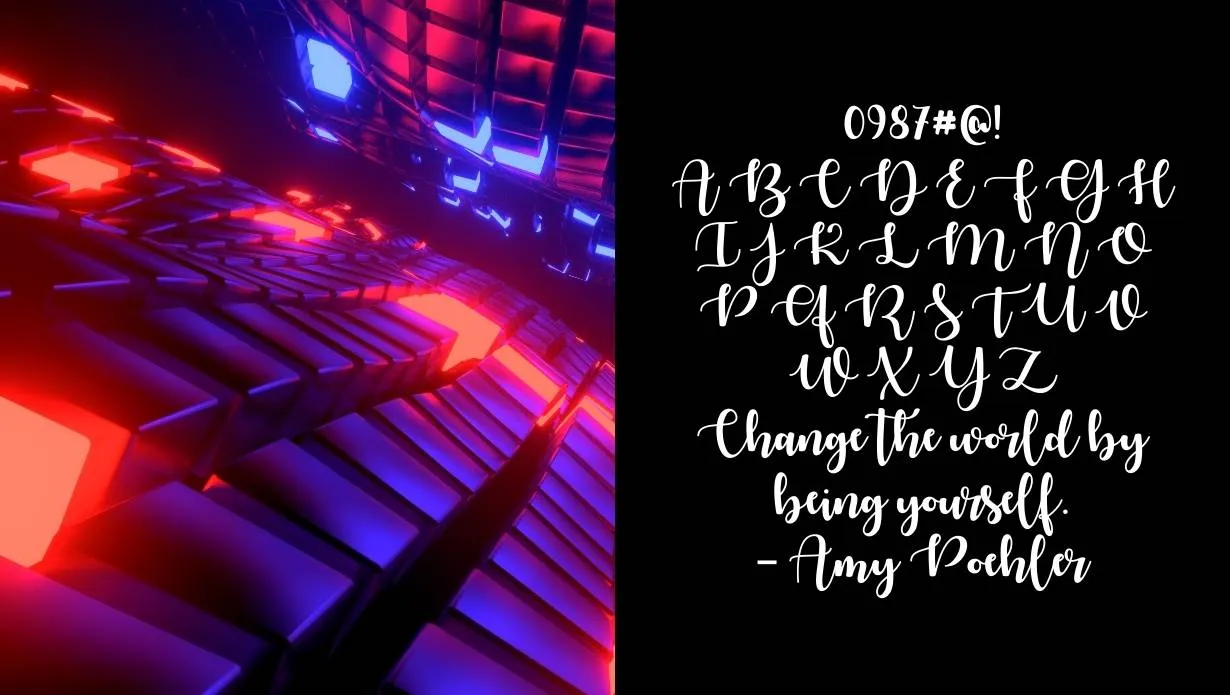
Autumn in November Font belongs to the Script typeface. This poplar typeface was developed by Misti’s Fonts. This keen feature font family contains 3 unique fonts. You can use this font for various purposes such as headlines, logos, wedding invitations, t-shirts, letterheads, signboards, labels, posters, badges, etc.
The Autumn in November Font features three different styles namely Regular, Bold, and Italic. Each style has its own unique set of characters. The best thing about this font is that it is suitable for both personal and commercial use. For more amazing uses, you can also use braxton font which is similar to this typeface.
Autumn in November Font Family